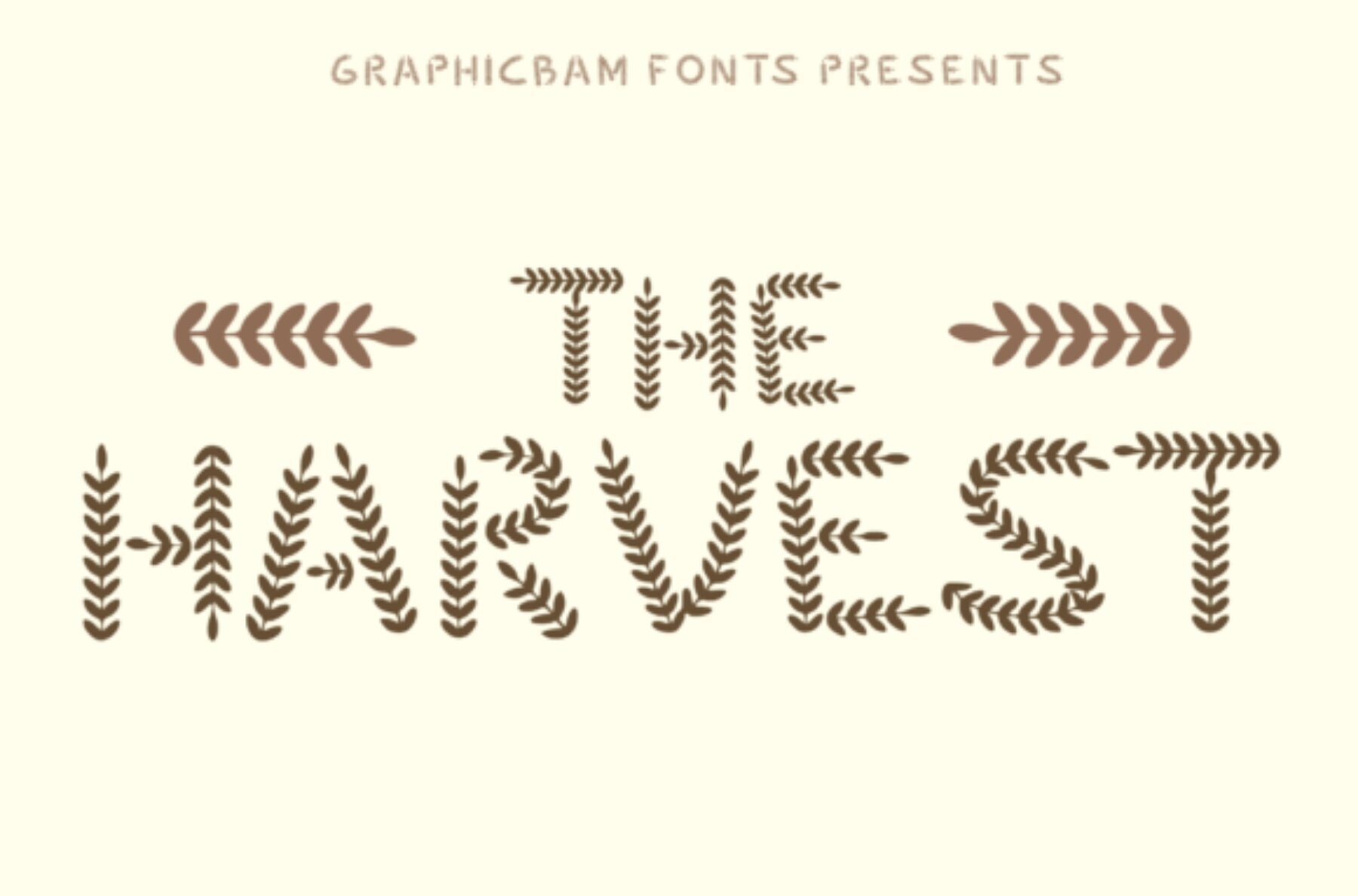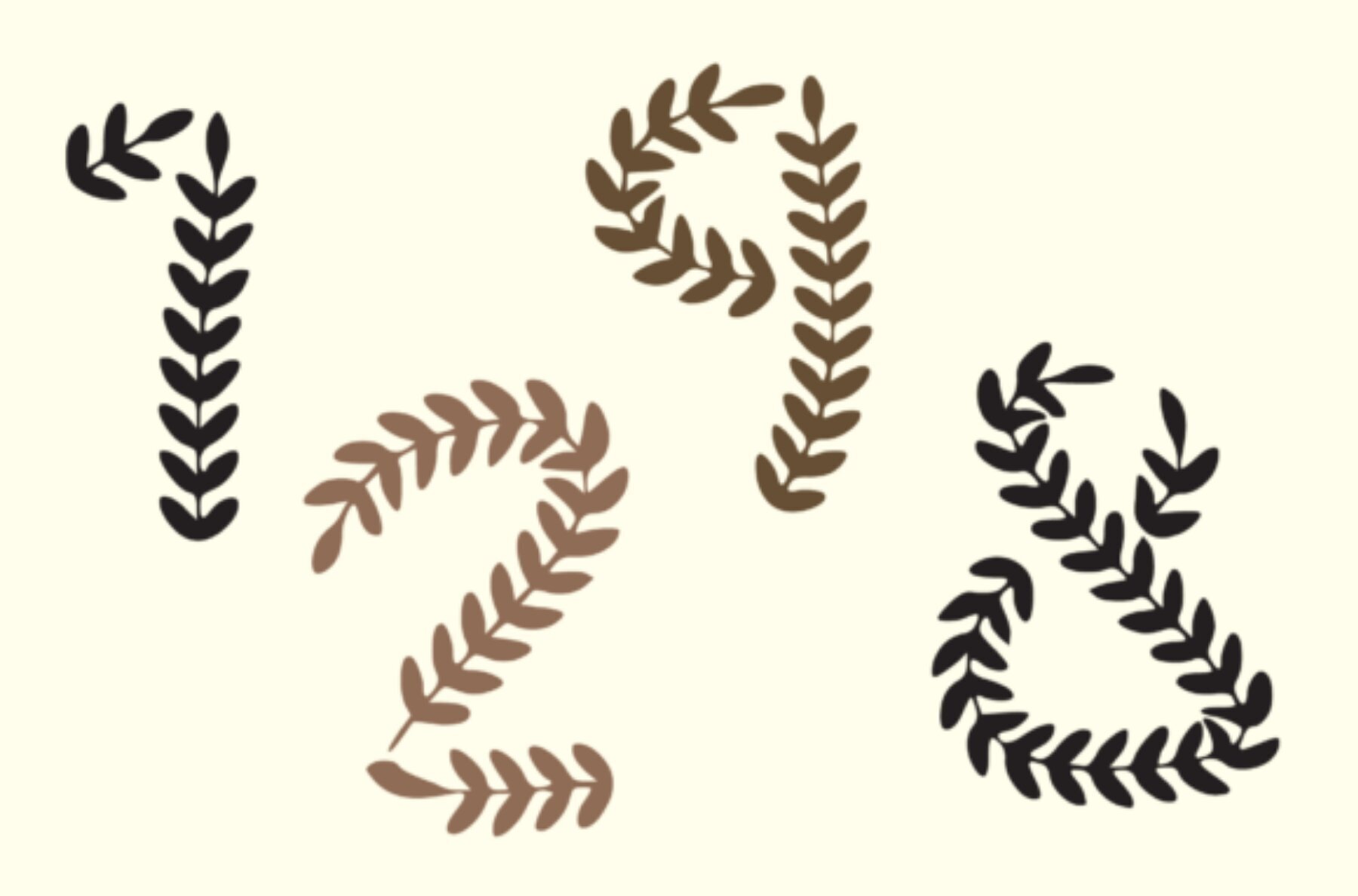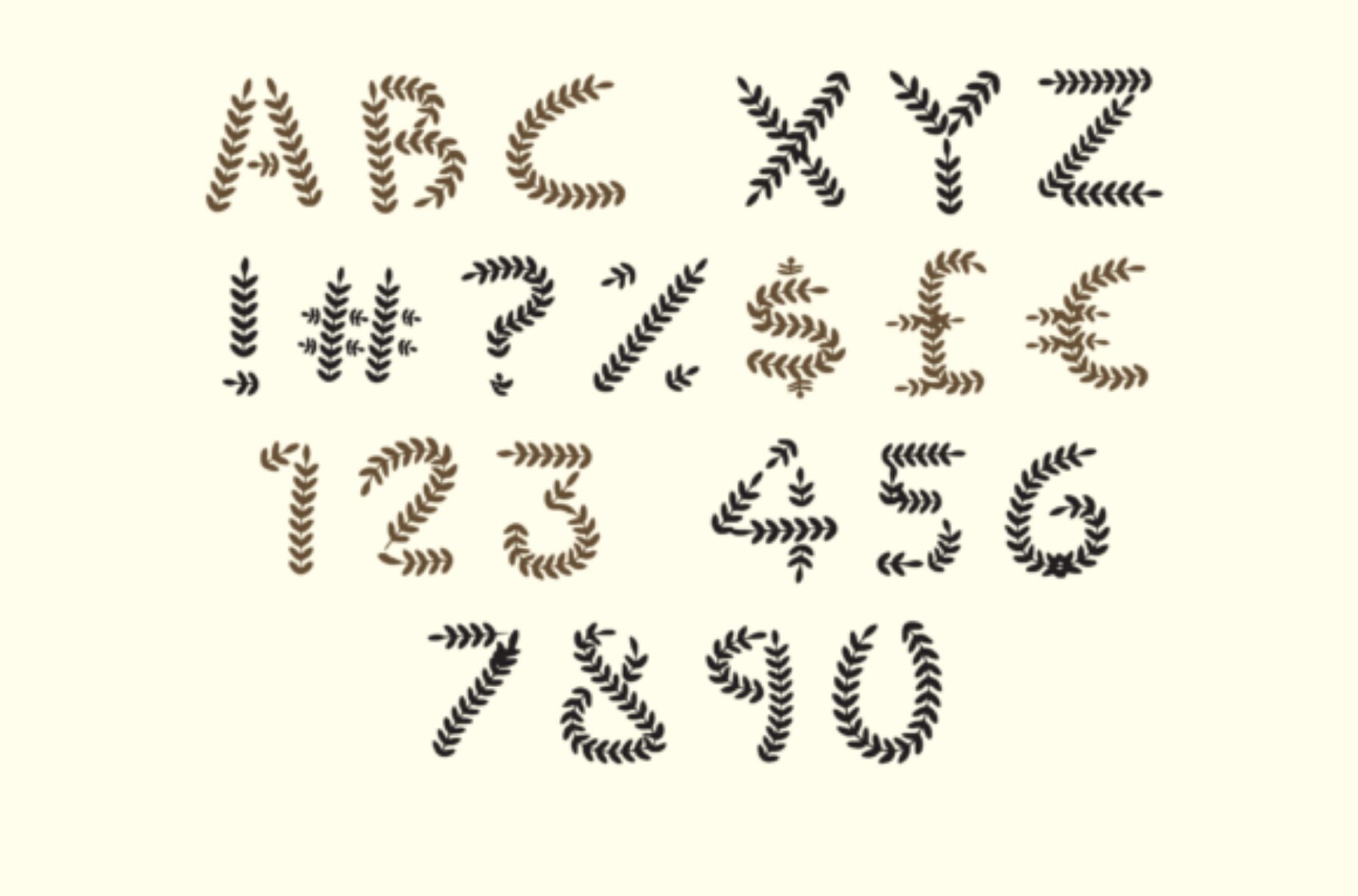
The Harvest Font
The Harvest
Infuse your projects with a touch of nature's abundance with The Harvest font. Featuring distinctive characters, this decorative font brings a casual yet sophisticated flair to any design. Its unique style captures the essence of prosperity, making it an ideal choice for projects that aim to convey natural beauty and wealth.The Harvest Font: Casual Elegance for Your Designs